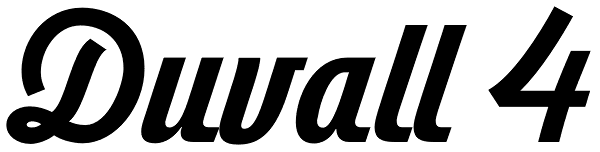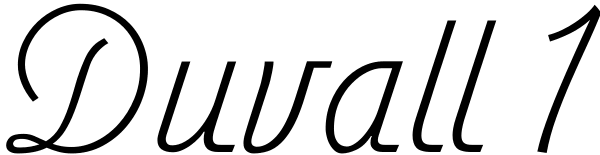
Duvall
Duvall is an idealization created from the Edward J. Duvall lettering. Mr. Duvall was a teacher in lettering, who was well known for his book “Modern Sign Painting” in the late 40s and early 50s. Duvall cursive script is presented in five weights...
Duvall 4
Duvall 2
Duvall 3
Duvall 5
Duvall 1
Duvall FunWords
Duvall Style
Duvall Ribbons